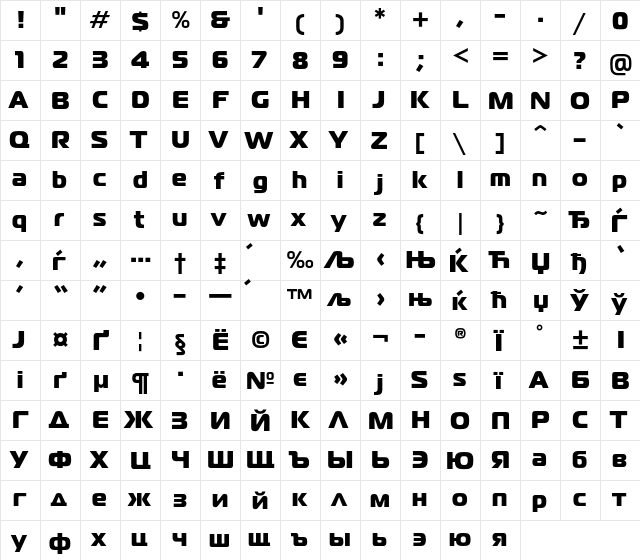
MagistralBlackC Regular
Design Context for MagistralBlackC Typeface
MagistralBlackC offers clean, dependable letterforms without strong stylistic allegiance, making it a practical choice for designers who need flexibility.
Pro Tip: Pair MagistralBlackC with a font of contrasting weight or personality to build a more expressive typographic hierarchy.